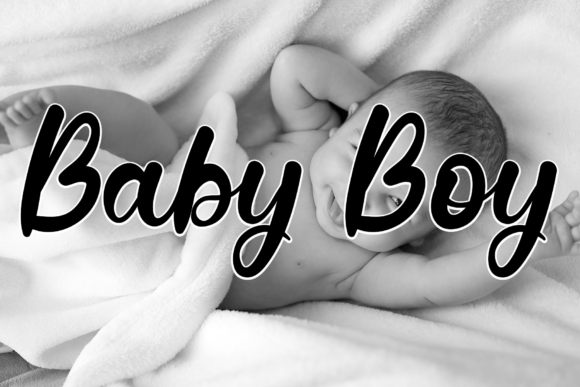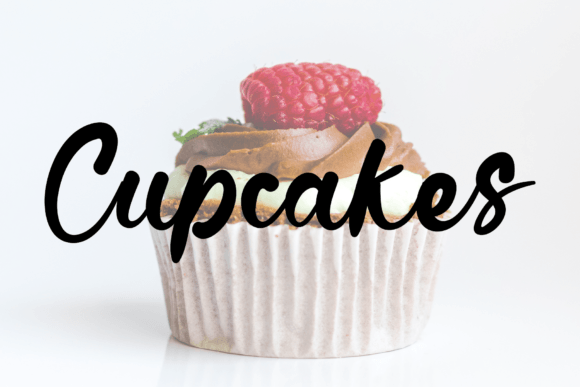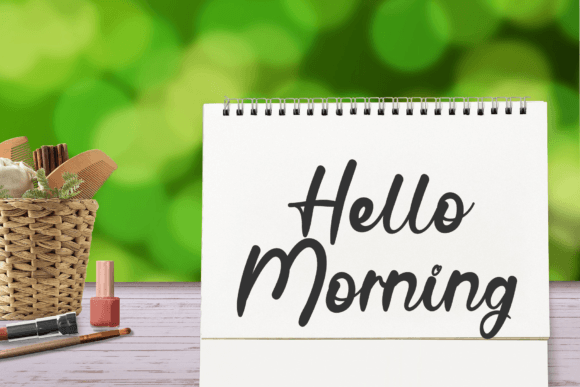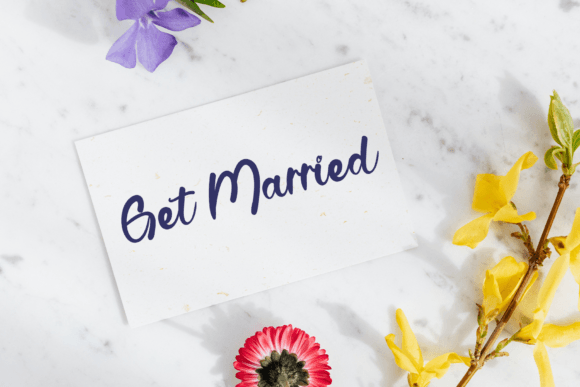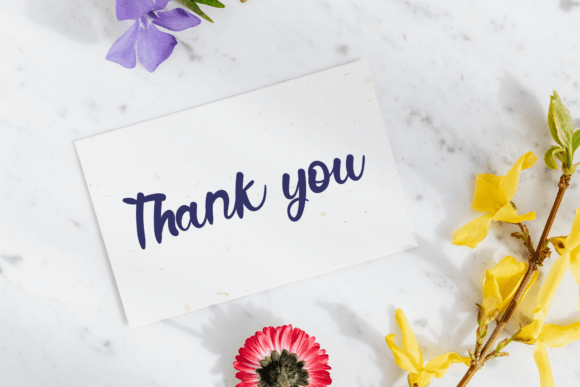
Introducing Boho Beach Font: The Perfect Addition to Your Design Collection
Are you a designer or crafter looking for a unique and playful font to add a touch of personality to your projects? Look no further than Boho Beach Font! This sweet and friendly handwritten font is perfect for creating wedding invitations, cards, and other designs that require a fun and carefree vibe.
What is Boho Beach Font?
Boho Beach Font is a beautifully crafted handwritten font that exudes a fresh and neat feel. Its bohemian-inspired design makes it ideal for adding a touch of whimsy and playfulness to any design project. Whether you’re creating wedding invitations, greeting cards, or social media graphics, Boho Beach Font is sure to make your designs stand out.
Key Features of Boho Beach Font
• Sweet and Friendly Design: Boho Beach Font features a sweet and friendly design that’s perfect for creating designs that require a personal touch.
• Handwritten Style: This font boasts a beautiful handwritten style that’s reminiscent of beachy, bohemian vibes.
• Fresh and Neat: Boho Beach Font is incredibly fresh and neat, making it perfect for designs that require a clean and modern look.
• Versatile: This font is incredibly versatile and can be used for a wide range of design projects, from wedding invitations to social media graphics.
Boho Beach Font is an excellent choice for wedding invitations, cards, and other stationery designs. Its playful and carefree vibe makes it perfect for adding a touch of personality to your wedding stationery. Imagine creating beautiful wedding invitations that set the tone for a fun and relaxed wedding celebration. With Boho Beach Font, you can create stunning designs that will leave a lasting impression on your guests.
Why Choose Boho Beach Font?
So, why choose Boho Beach Font over other fonts? Here are just a few reasons why this font stands out:
• Unique Design: Boho Beach Font features a unique design that’s sure to make your designs stand out from the crowd.
• Easily Readable: This font is incredibly easy to read, making it perfect for designs that require a clear and concise message.
• Customizable: Boho Beach Font is highly customizable, allowing you to adjust the font to fit your design needs.
How to Use Boho Beach Font
Using Boho Beach Font is incredibly easy. Here are just a few ways you can incorporate this font into your design projects:
• Wedding Invitations: Use Boho Beach Font to create stunning wedding invitations that set the tone for a fun and relaxed wedding celebration.
• Greeting Cards: Add a personal touch to your greeting cards with Boho Beach Font.
• Social Media Graphics: Use Boho Beach Font to create eye-catching social media graphics that showcase your brand’s personality.
• Branding Materials: Incorporate Boho Beach Font into your branding materials, such as business cards and brochures, to add a touch of whimsy and playfulness.
In conclusion, Boho Beach Font is a beautiful and versatile font that’s perfect for designers and crafters looking to add a touch of personality to their projects. Its sweet and friendly design, handwritten style, and fresh and neat feel make it an excellent choice for wedding invitations, cards, and other design projects. With its ease of use and customizability, Boho Beach Font is sure to become a staple in your design collection.